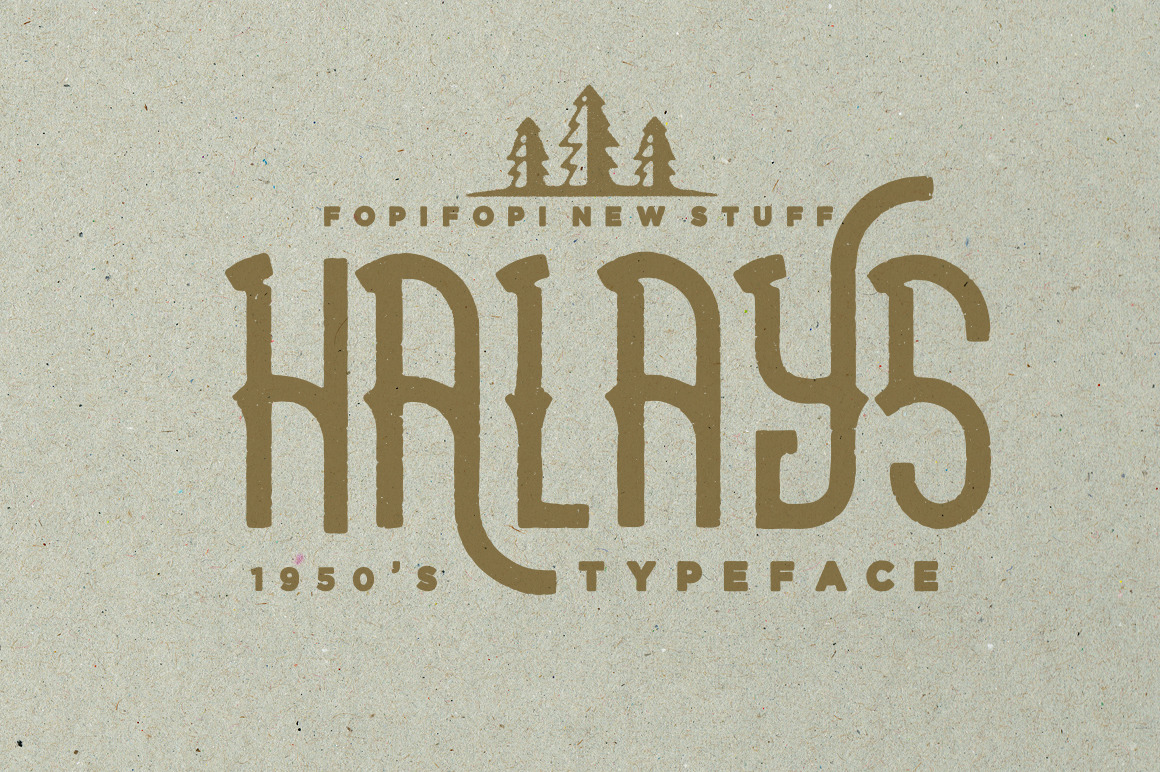
Halays Typeface is a unique font inspired by vintage poster & cowboy style that makes Halays Typeface perfectly fit for your apparel designs,merch designs, poster, logo and all of your handcrafted projects presentations. Sky is your limit :))